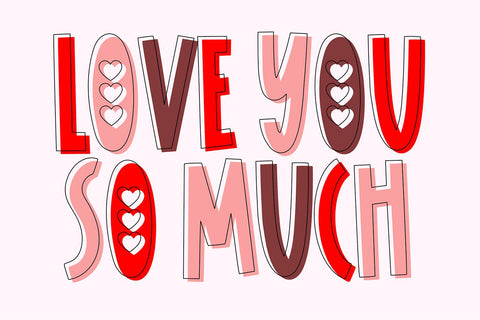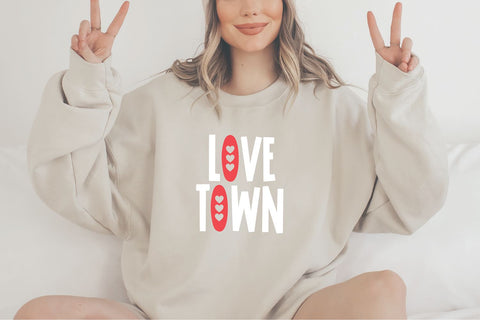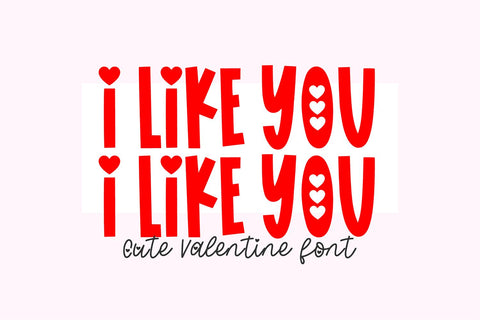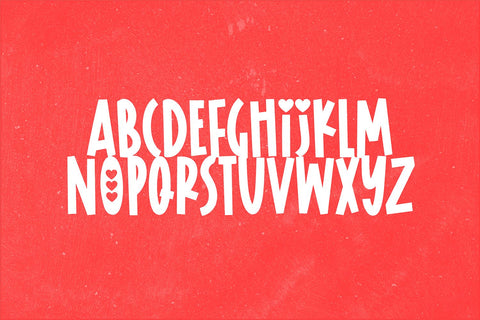
I Like You Valentine Heart Font
"I Like You" Valentine's Day font
This font was made specifically for your Valentine's/Wedding projects. Use it for Valentine's cards, crafts for decor, invitations, and more!